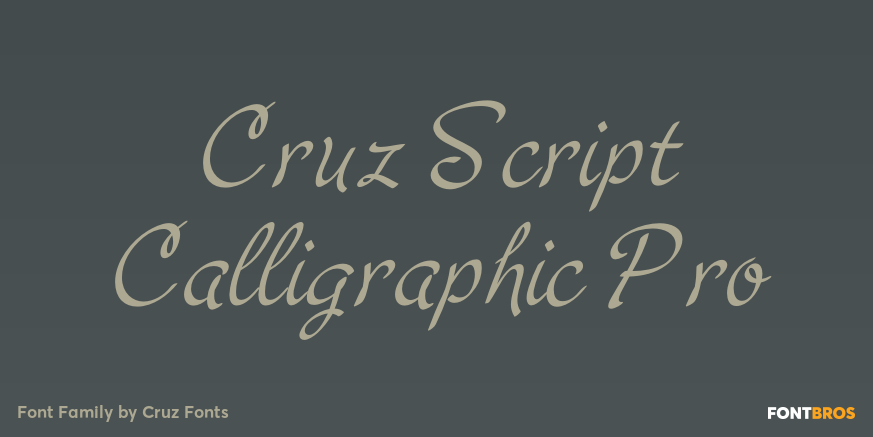
About Cruz Script Calligraphic Pro
The three Script fonts: Brush Pro, Ballpoint Pro and Calligraphic Pro were derived from the original Ballpoint design. A custom Brush and Calligraphic texture was added to complete the family and twenty-two clip-art illustrations were created for each…